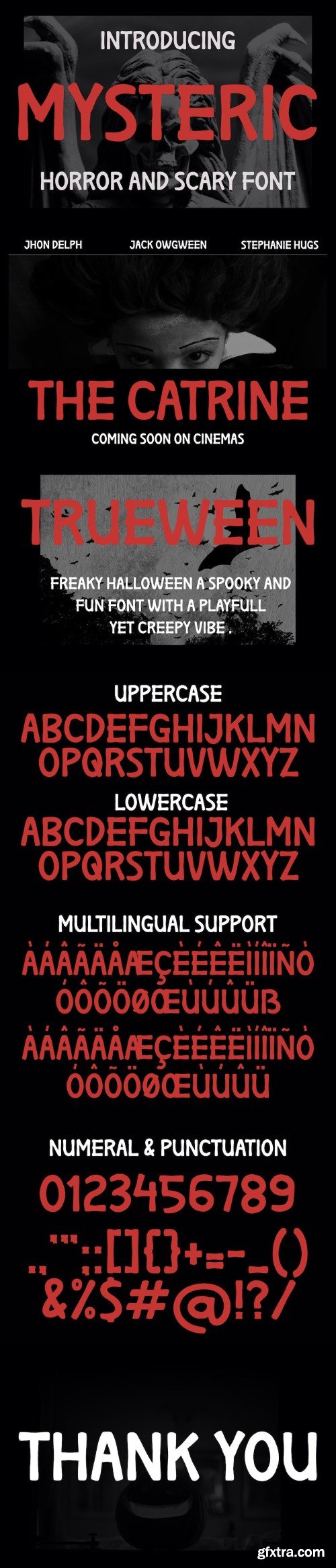
神秘 - 恐怖和惊悚字体
Introducing our new product Mysteric - Horror and Scary Font
Mysteric is a type of font specifically designed to create a spooky, mysterious atmosphere and depict the spirit of Halloween celebrations. This font can be used in various Halloween-related media, such as party invitations, posters, merchandise designs, greeting cards, warning signs, or within website designs with Halloween themes.
- Uppercase
- Lowercase
- Multilingual